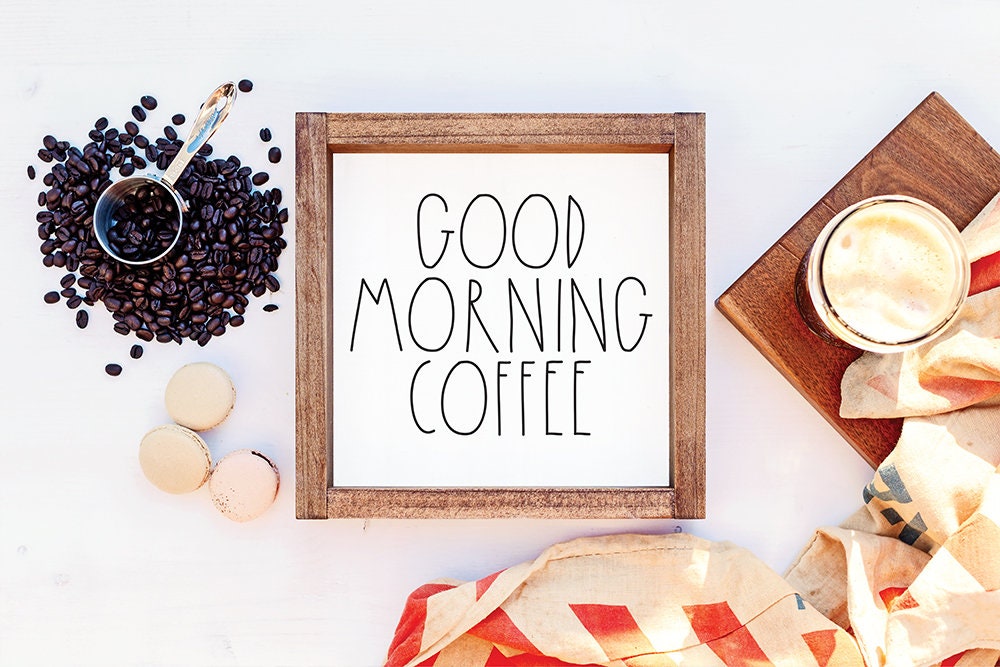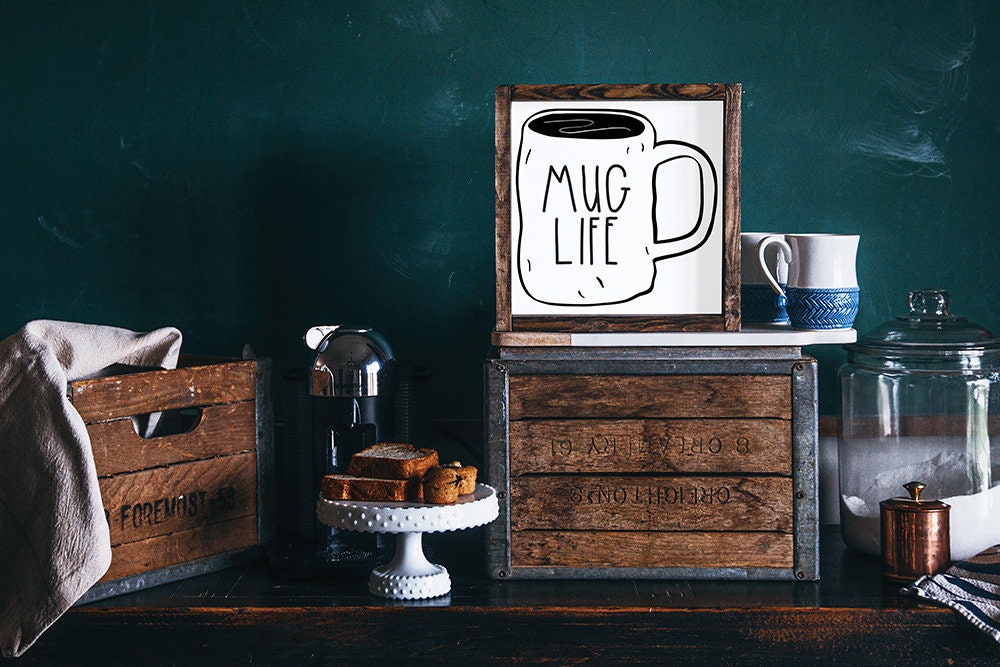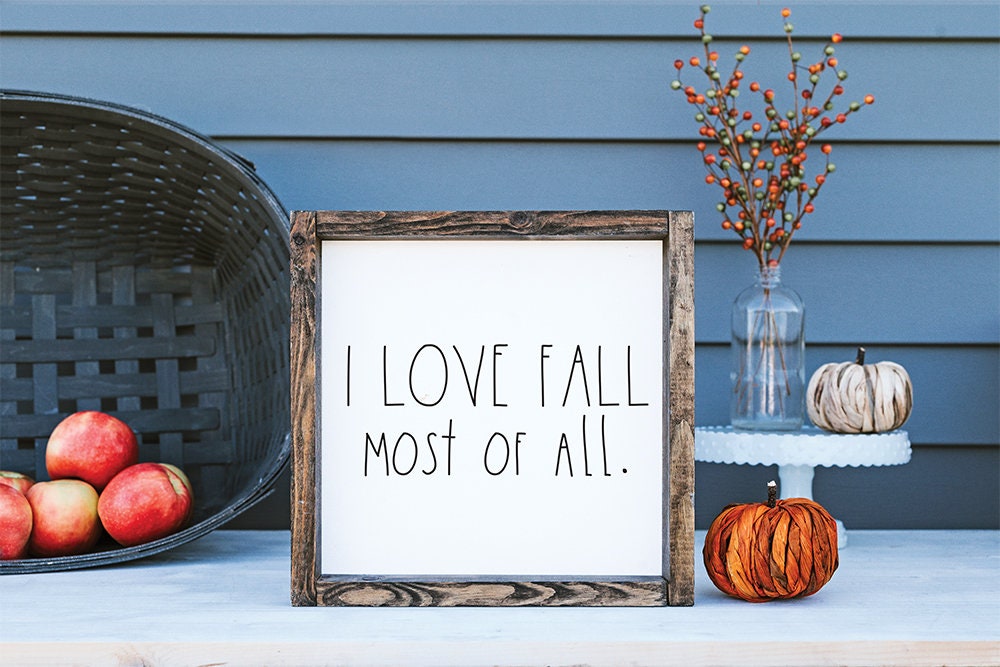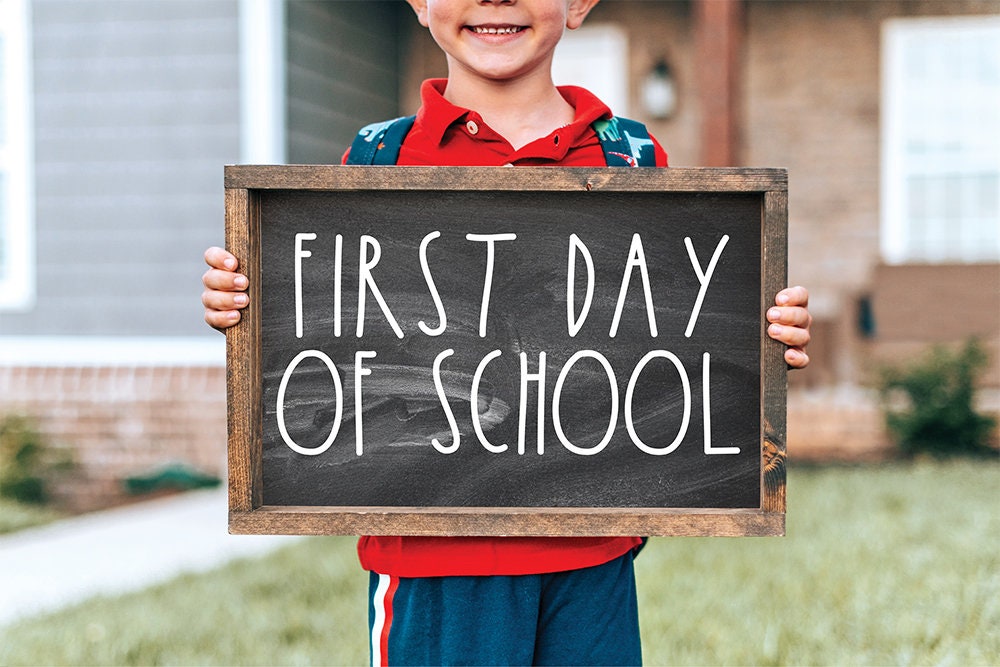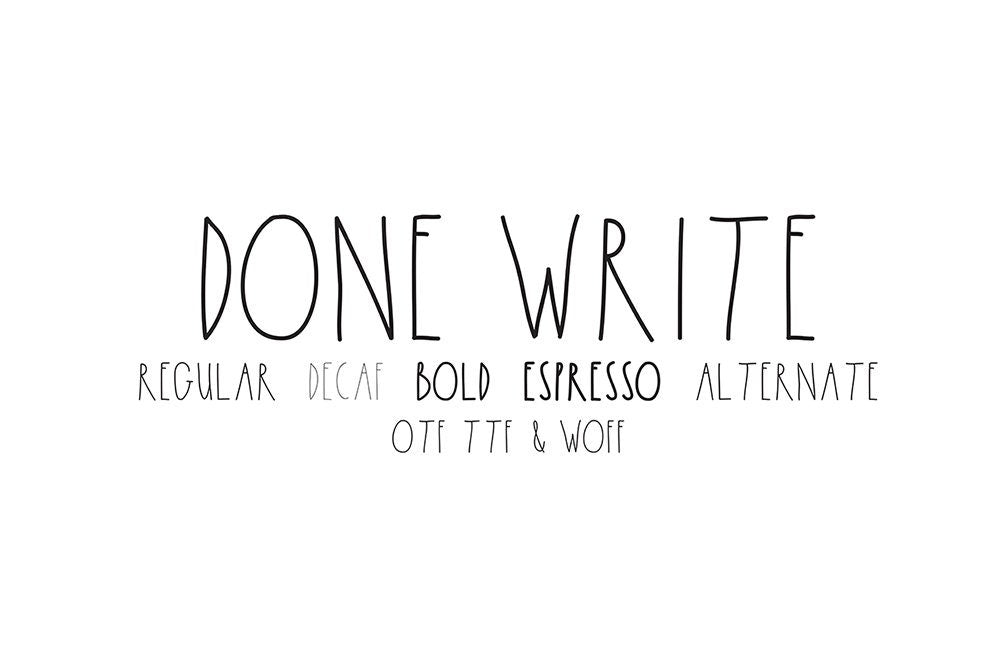
Done Write Font Family | Skinny Farmhouse Font | OTF TTF and Web Font Included
Collection of skinny farmhouse fonts! You get 5 different styles! Also included is a cutting file of a farmhouse mug!
In the collection you get:
Regular
Decaf
Bold
Extra Bold
Alternate
All families include upper and lowercase letters, punctuation and numbers. There are also a few doodles included.